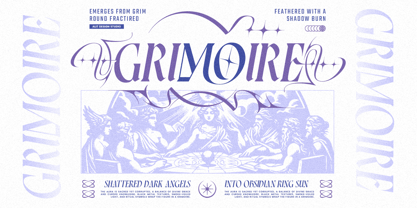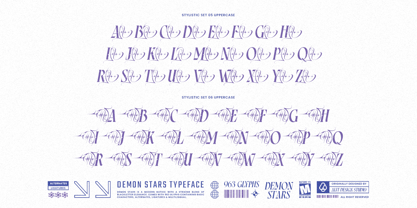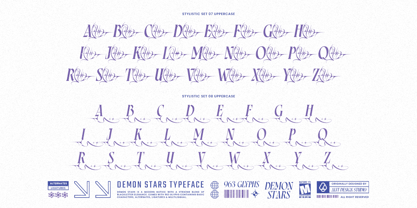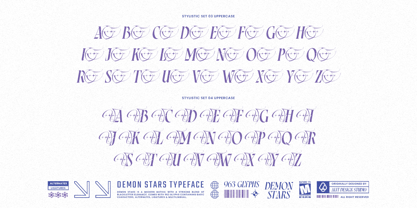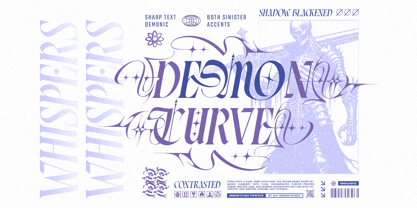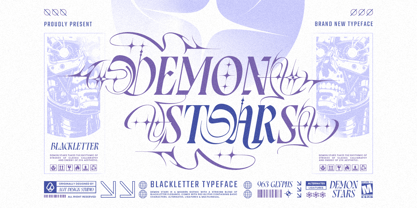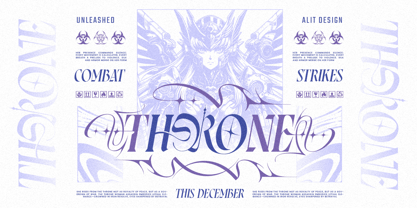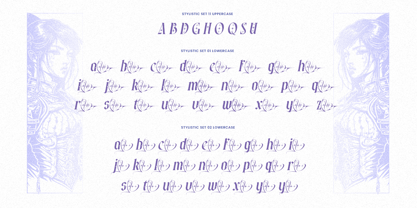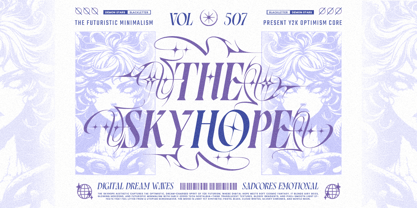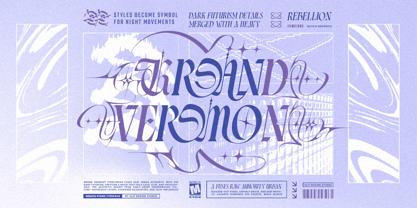
Demon stars
by Alit Design
The Demon stars Font Family was designed by Alit Suarnegara and published by Alit Design. Demon stars contains 1 styles. More about this family
Unleash the Dark Elegance. Summon the Style. Demon Stars is a high-octane Italic Blackletter typeface that bridges the gap between ancient gothic tradition and the rebellious spirit of modern streetwear. Born from the intersection of "Gate of Babylon" engraving art and contemporary Y2K grunge, this font is designed to cut through the noise. Unlike traditional static gothic fonts, Demon Stars is built with speed and aggression. Its italicized stance gives it a sense of forward motion, while the sharp, diamond-cut terminals and decorative "star" accents add a layer of mystical complexity. It is not just a font; it is a weapon for your visual arsenal. The Aesthetic: Wicked & Divine Demon Stars balances brutality with beauty. The strokes are bold and high-contrast, reminiscent of medieval calligraphy, yet infused with the "Acid Graphics" and "Brutalism" trends found in high-end fashion today. Whether you are aiming for a dark, demonic vibe or a heavenly, intricate look, this typeface adapts to your vision. Key Features: Aggressive Italic Structure: A gothic script that feels fast, dynamic, and unapologetic. Ornate Alternates: Packed with stylistic sets that transform standard letters into elaborate masterpieces featuring sweeping swashes and sharp tails. Decorative Elements: Integrated star sparkles and sharp serifs that give the font its signature "Demon Stars" branding. Versatile Ligatures: Custom connections that make your typing look like hand-drawn lettering. Built For the Bold: This typeface is specifically engineered for projects that need to stand out: Streetwear & Merch: Perfect for T-shirt graphics, hoodies, and edgy clothing labels. Music Branding: Ideal for Metal, Phonk, Rock, and Trap album covers or band logos. Display & Posters: Create headlines that demand attention (and maybe a little fear). Logo Design: With its extensive alternate characters, you can craft unique logotypes in seconds. What’s Included: Uppercase & Lowercase Numerals & Punctuation Extensive Stylistic Alternates & Ligatures Multilingual Support Don't just design. Dominate. Make your mark with Demon Stars.